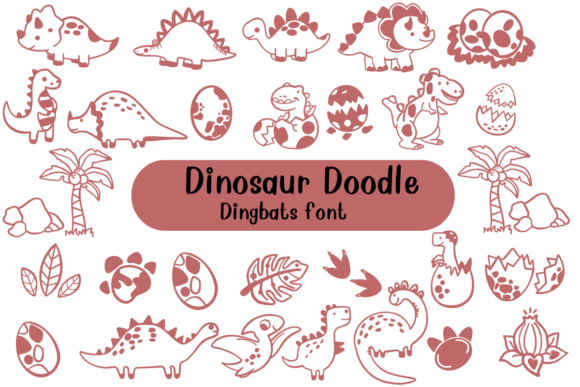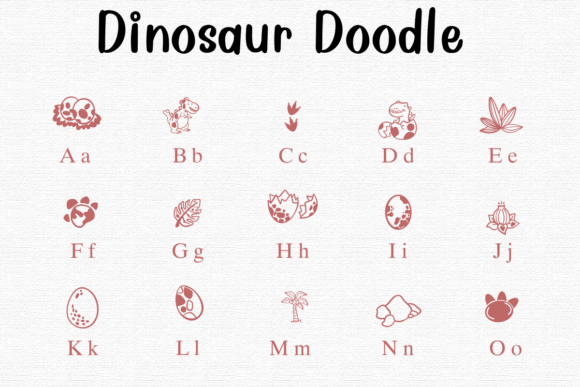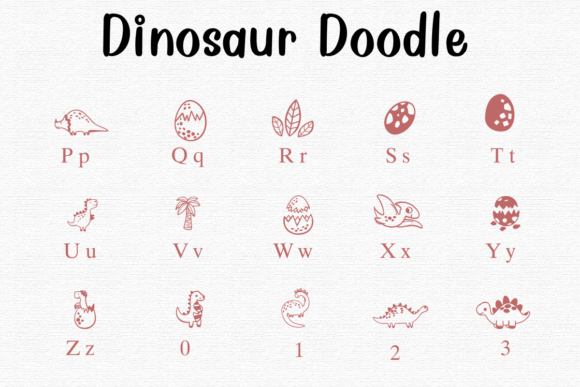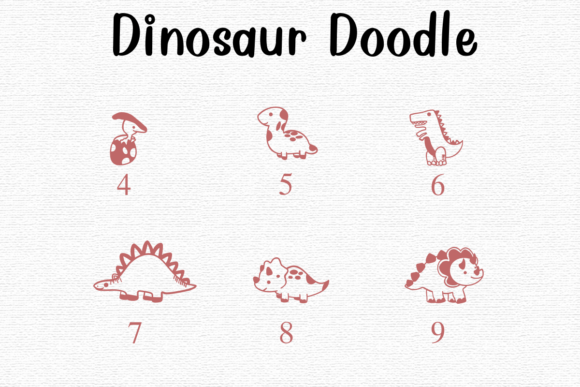
Dinosaur Doodle Font
About the Dinosaur Doodle Font
Meet Dinosaur Doodle Font, a stunning font that brings a touch of elegance and professionalism to any design. Dinosaur Doodle is a dingbats font with a cute theme. This font can enhance your creative projects such as wedding invitations, DIY, crafts, decorations, logos, and many other creative ideas.
Dinosaur Doodle’s playful nature makes it ideal for children’s books, branding for toy companies, or playful packaging designs. It works exceptionally well in headlines, short slogans, and logos where its whimsical charm can shine. However, its low readability makes it unsuitable for body text or lengthy paragraphs. Avoid using it in UI design or situations requiring clear, concise information.
Pairing Dinosaur Doodle with a clean sans-serif like Open Sans for body text provides a nice contrast; the playful script font, Pacifico, could add another layer of whimsy for specific design elements. Alternatively, a more geometric sans-serif like Montserrat would offer a modern counterpoint to the font’s hand-drawn aesthetic.
The overall personality of Dinosaur Doodle is undeniably cheerful and friendly, radiating a sense of childlike wonder. Its informal character makes it a strong choice for projects that require a fun and approachable visual identity.
Dinosaur Doodle Font Usage Examples
Dinosaur Doodle Font Example